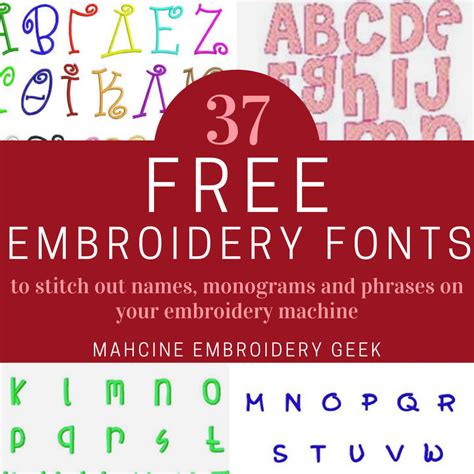
Are you tired of using the same old fonts in your embroidery projects? Do you want to add a touch of uniqueness and creativity to your designs? Look no further! Our FREE collection of machine embroidery fonts and alphabets will take your projects to the next level.
Did you know that using different fonts can completely change the look and feel of your project? With our wide range of font options, you'll never run out of ideas.
Whether you're creating personalized gifts or adding a custom touch to your clothing or home decor, our collection has something for everyone. From classic serif fonts to whimsical script options, the possibilities are endless.
Embroidery is a popular craft that has been around for centuries. Today, with the help of machines and software, embroidery has become easier and more accessible to people of all skill levels. One of the most essential components of machine embroidery is fonts and alphabets. They allow you to add text and personalize your projects in many ways. In this article, we will be comparing various options available in the market to help you choose the right one for your needs.
Customization
If you want to customize your creations, fonts and alphabets are a great way to do it. You can create your designs and tailor them to your specific needs. With our free collection, you can mix and match different styles and create unique combinations.
Compatibility
Ease of Use
Variety
The variety of styles and designs available in fonts and alphabets is crucial to creating unique and personalized projects. Our free collection offers an array of font types, including script, block, and specialty.
Quality
When it comes to creating beautiful embroidery, the quality of the font and alphabet is vital. Poor quality software will result in shoddy embroidery. Our free collection is a high-quality selection, ensuring your projects look beautiful every time.
Support
Having access to support is vital when working with any software. Our free collection provides detailed instructions and support to ensure you use the software effectively.
Table Comparison
| Feature | Our Free Collection | Paid Option |
|---|---|---|
| Cost | Free | Expensive |
| Compatibility | Compatible with most machines | May require specific software |
| Variety | Array of font types | More extensive collection |
| Quality | High-quality selection | Varies depending on the brand |
| Support | Detailed instructions and support | Depends on the brand |
In conclusion, fonts and alphabets are essential components of machine embroidery. Whether you go for a paid or free option, it's important to choose the best quality to create beautiful results. Our FREE Collection of Machine Embroidery Fonts and Alphabets offer a wide variety of choices while remaining cost-effective, user-friendly, and reliable. Give our free collection a try and unleash your creativity today!
- You can use these fonts and alphabets to enhance a wide variety of projects, including clothing, home decor, accessories, and more.